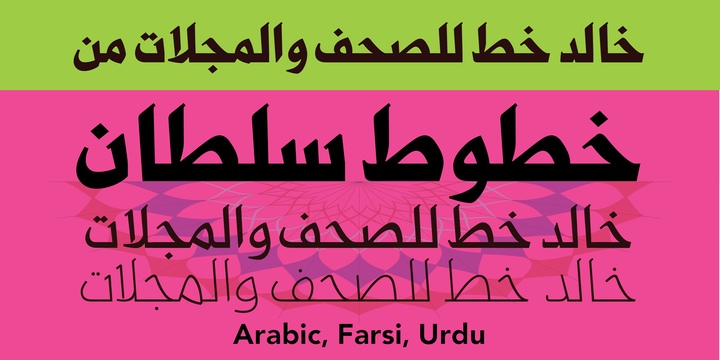
SF Khaled Font
SF Khaled Font is perfect for Middle Eastern restaurant branding, Islamic cultural center signage, Arabic calligraphy studios, cultural festival posters, heritage tourism marketing, traditional craft shop displays, mosque communication materials, and multicultural event graphics.
What makes SF Khaled Font exciting is its cultural sophistication that honors the rich artistic heritage and elegant tradition of Arabic design and Islamic civilization. The font features dignified letterforms with flowing proportions and traditional character that evoke ancient manuscripts, geometric patterns, and the timeless beauty of Middle Eastern calligraphy. Its distinctive cultural styling and authentic appeal communicate respect, tradition, and artistic excellence, making every message feel grounded in centuries of cultural refinement and artistic mastery.
The SF Khaled Font family includes regular weight with Latin characters, numerals, punctuation marks, and special characters designed with Middle Eastern aesthetic influence. Premium versions often feature decorative alternates and cultural elements that enhance the traditional, Islamic aesthetic perfect for cultural and heritage applications.
The traditional character of SF Khaled Font makes it particularly effective for cultural institutions, halal restaurants, and Islamic educational centers. Its excellent readability ensures cultural information and religious communications remain clear while maintaining the distinctive Middle Eastern aesthetic that appeals to audiences seeking authentic cultural experiences and traditional artistic beauty.
Cultural marketers and community leaders appreciate how SF Khaled Font effortlessly conveys cultural respect and artistic heritage. The font's dignified proportions and traditional details create trustworthy brand materials that establish connections with audiences who value cultural authenticity, religious tradition, and the artistic excellence of Islamic civilization.
The versatile cultural appeal of this typeface extends to cultural museums, international organizations, and heritage preservation where Middle Eastern authenticity enhances cultural understanding. SF Khaled Font Free Download provides creative professionals with a valuable tool for developing memorable, culturally-sensitive designs that resonate with audiences who embrace Middle Eastern culture, Islamic tradition, and the enduring beauty of Arabic artistic heritage in their cultural and educational experiences.